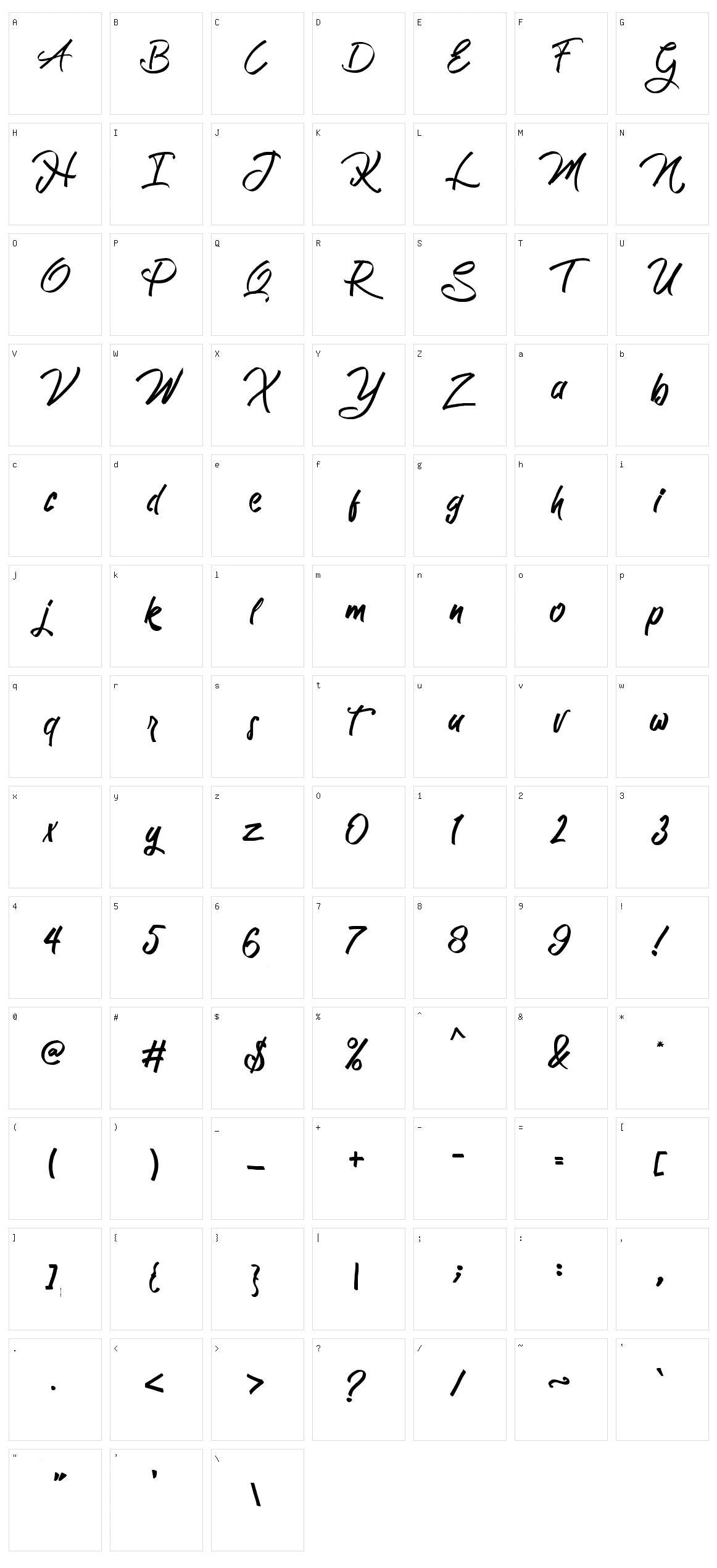
The free font Katherine is carefully designed by Letterara, showcasing a thoughtful balance of creativity and usability and falls under the Script font style. When you download the ZIP file, it contains only 229.31 KB of font files, making it lightweight and quick to download. Please review the license details below to understand permitted usage and distribution rights. If license information is not available, we recommend using this font for personal projects only or contacting the author directly for commercial usage permissions.